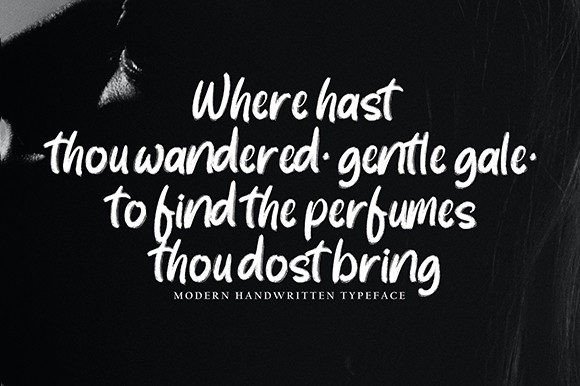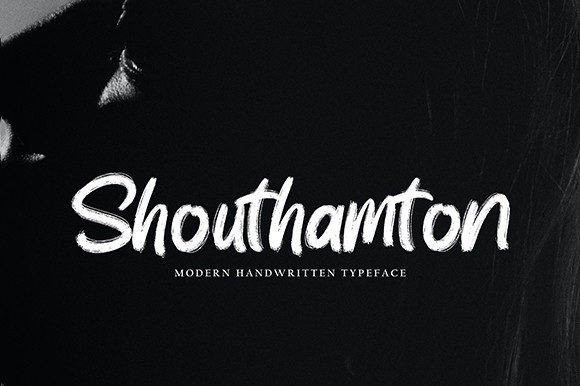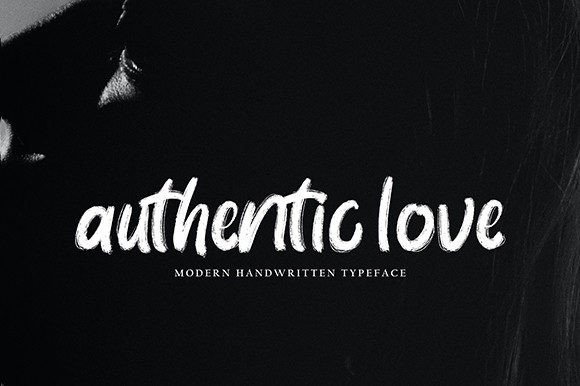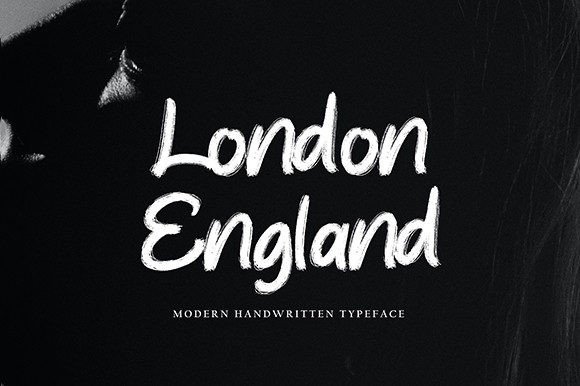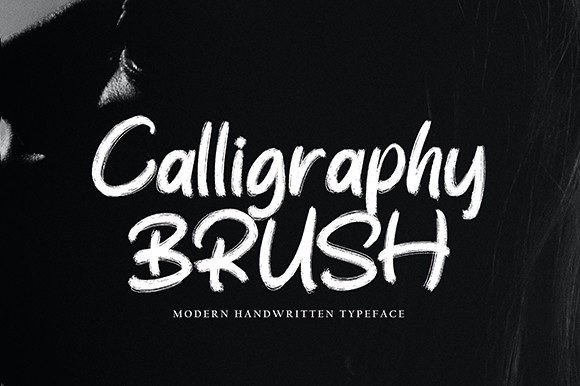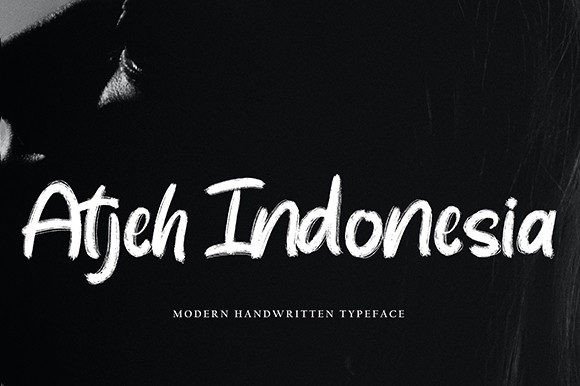
Introduction to Raster Font
Have you ever stared at a blank canvas, trying to come up with the perfect phrase to kick-start your next creative project? You know, that one line that sets the tone for the entire design? For many designers, finding the right font is the key to unlocking that perfect phrase. Enter Raster Font, a charming handwritten font that’s perfect for quotes, logos, and just about any other design project you can think of.
Key Features of Raster Font
- High-resolution images: Raster fonts are made up of high-resolution images, typically in PNG or GIF format, which provide a high-quality visual representation of the font.
- Transparent background: Many Raster fonts have a transparent background, allowing designers to easily integrate them into their creative projects without worrying about background colors.
- Vector and pixel-based: Raster fonts are pixel-based, but they can also be converted to vector formats like SVG for use in vector graphics editors.
- High-quality images: Raster fonts are made up of high-quality images, which are ideal for use in digital design, print design, and web design.
- Customizable: Raster fonts can be easily customized and edited using image editing software, making them a great option for designers who need to make changes to their fonts.
Honest Review: Raster Font
I recently had the chance to work with Raster Font, and I must say it’s been a game-changer for my creative projects. The font is incredibly versatile and offers a high-quality design experience. One of the standout features is its transparent background, which makes it easy to layer over other design elements.
Here are some things that really work well with Raster Font:
- ✨ High-quality design: The font is crisp and clear, making it perfect for professional projects.
- ✨ Transparent background: This feature is a huge time-saver, allowing me to focus on the design itself rather than tedious background manipulation.
While Raster Font is a great design resource, there are a few limitations to consider:
- ⚠️ Limited customization options: Some designers may find the font’s design a bit restrictive, particularly when it comes to font size and style.
- ⚠️ Compatibility issues: I’ve experienced some compatibility issues with certain design software, which can be frustrating.
Overall, I’m really impressed with Raster Font. Its high-quality design, transparent background, and free download make it a valuable resource for any designer. While it’s not perfect, the benefits far outweigh the limitations, making it a great choice for my creative projects.
Raster Font
Raster Font is a versatile design resource ideal for creative projects requiring high quality text elements. This versatile font can be used in a variety of applications, from digital designs to print materials.
Tips for Getting the Most Out of Raster Font
To get the most out of Raster Font, consider using a transparent background to allow for greater design flexibility. You can also experiment with different font sizes and colors to achieve the desired effect.
Raster Font is commonly used in graphic designs, digital art, and print materials where high quality text elements are required. It’s also a great resource for designers looking for a free download to use in their creative projects.